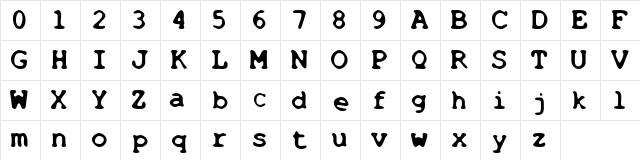
Cookie Mouth Regular Free Font
Cookie Mouth Regular
Design Context for Cookie Mouth
Cookie Mouth is a composed and adaptable typeface that performs quietly and consistently across a wide range of design contexts.